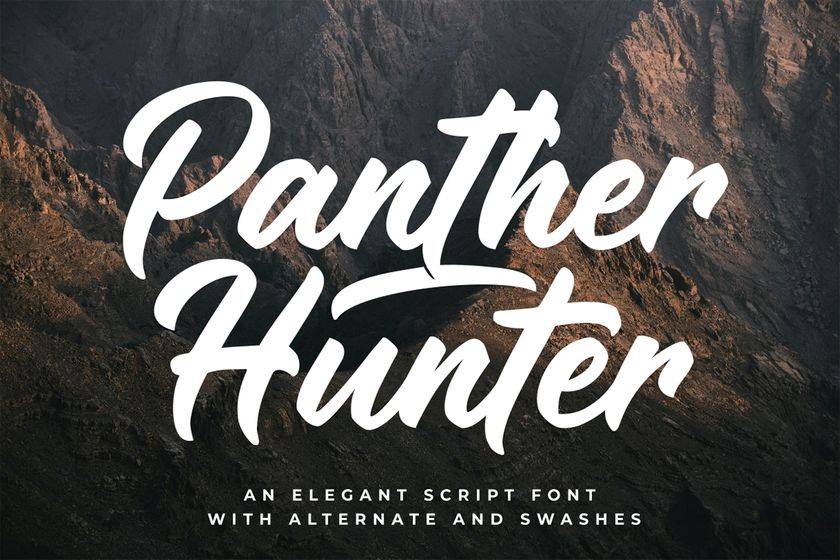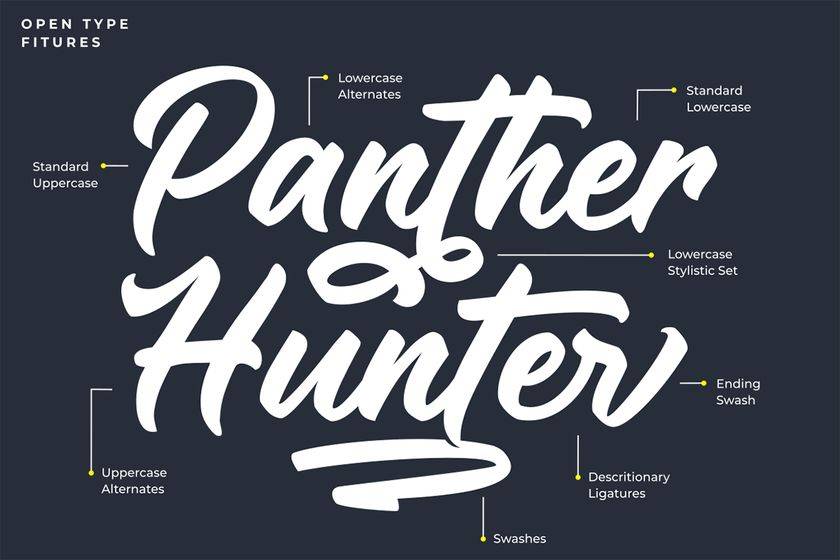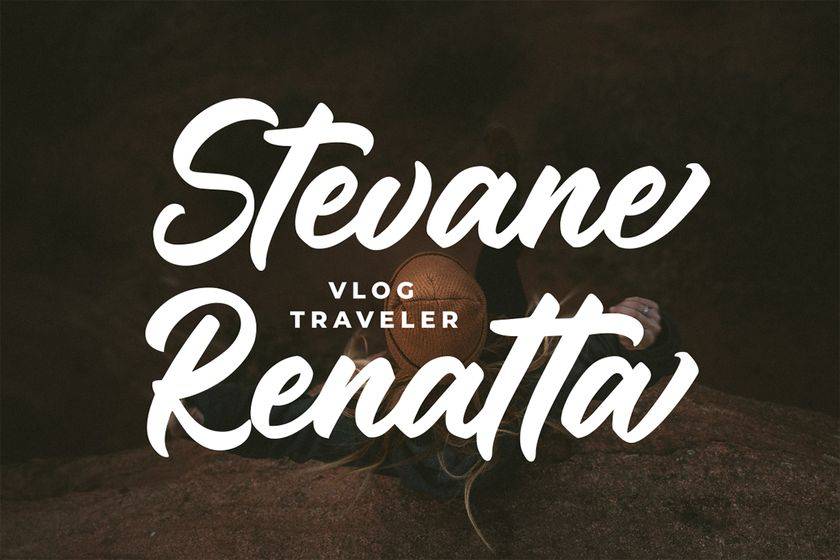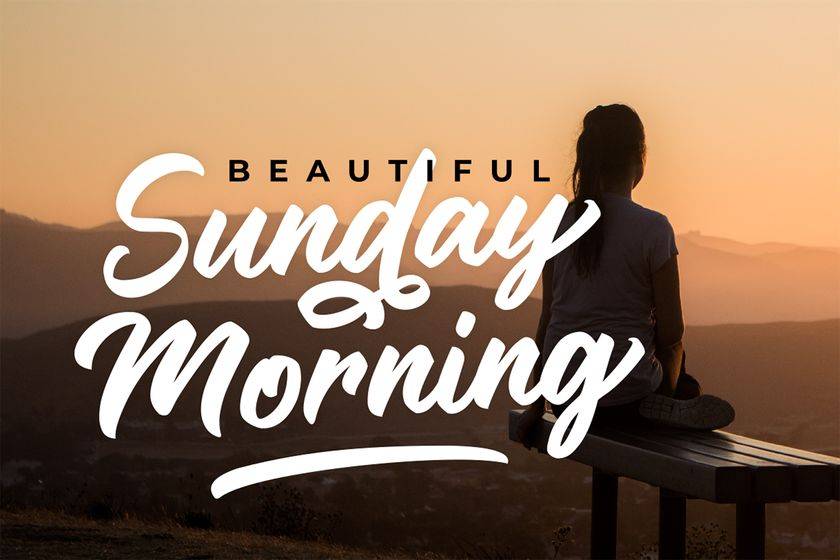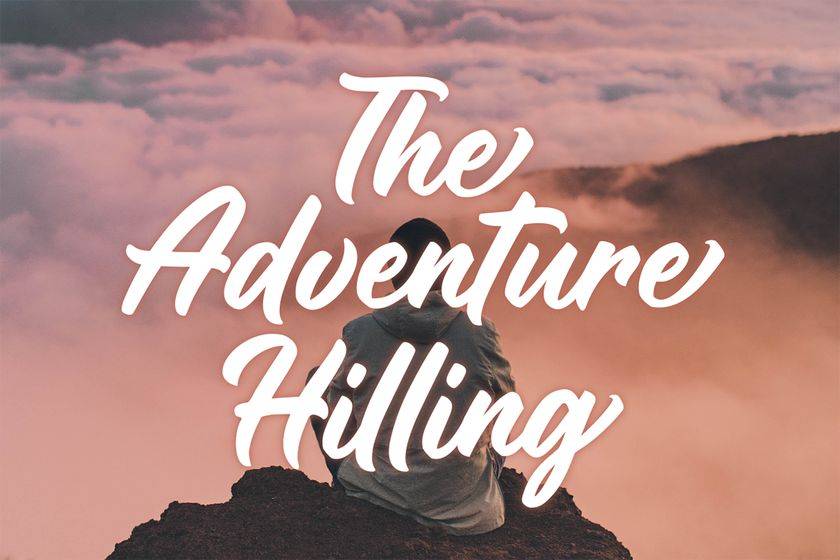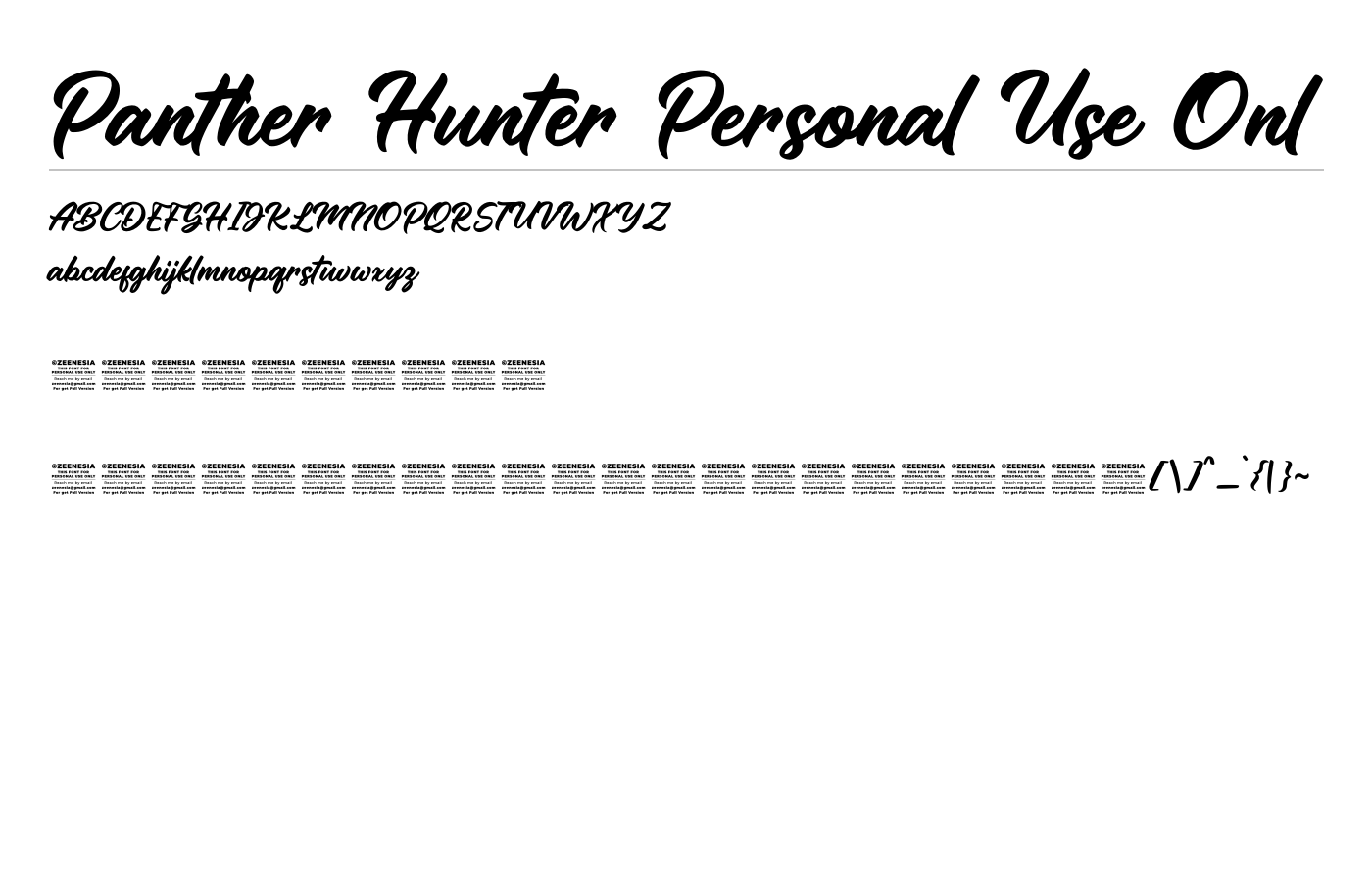
Panther Hunter is a bold script font with a lively, hand-painted feel that brings a casual yet confident personality to any design. Its smooth, flowing strokes and moderate contrast make it perfect for branding, invitations, and headlines where an inviting and energetic touch is desired. This font works well for creative projects that want to balance style and approachability with a dynamic, personal flair.
Panther Hunter Font
About Panther Hunter Font